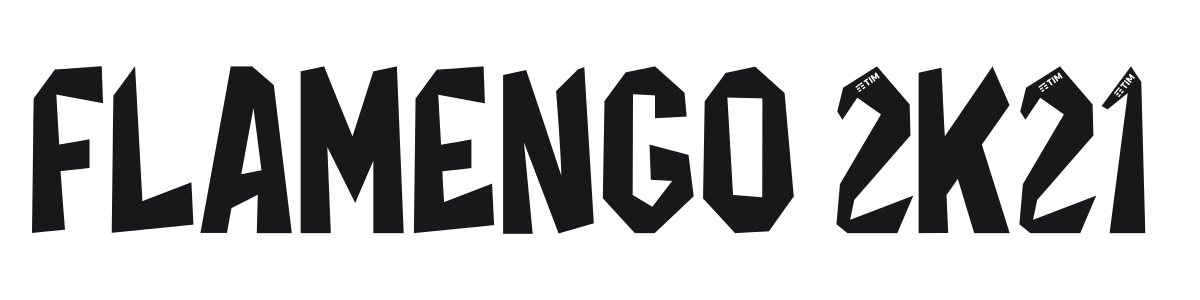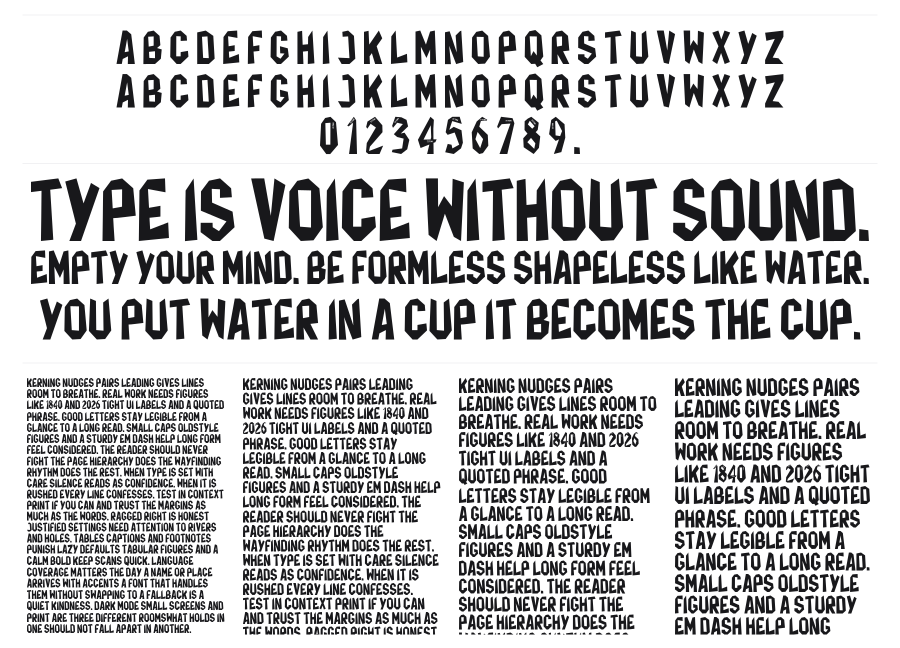
Flamengo 2k21
Flamengo 2k21 is a heavy condensed display face with angular, chiseled strokes and deliberately rough-cut edges. The irregular terminals and clipped diagonals give it a hand-crafted, almost woodblock energy that reads instantly as bold and confrontational. Strong choice for sports branding, music posters, and streetwear graphics.